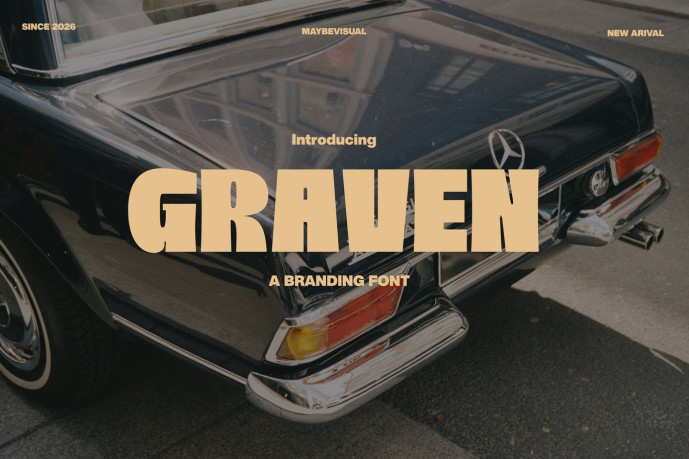
Graven Font
Designer: muhammadfuadhasan
Graven is a bold, vintage-inspired display font with strong, confident letterforms. Its thick shapes and retro style make it perfect for branding, posters, logos, packaging, and eye-catching headlines. Graven brings a timeless, classic feel while maintaining a modern and powerful look..
Features:
Uppercase and lowercase characters
Numerals and punctuation (OpenType Standard)
Symbols
Multilingual support